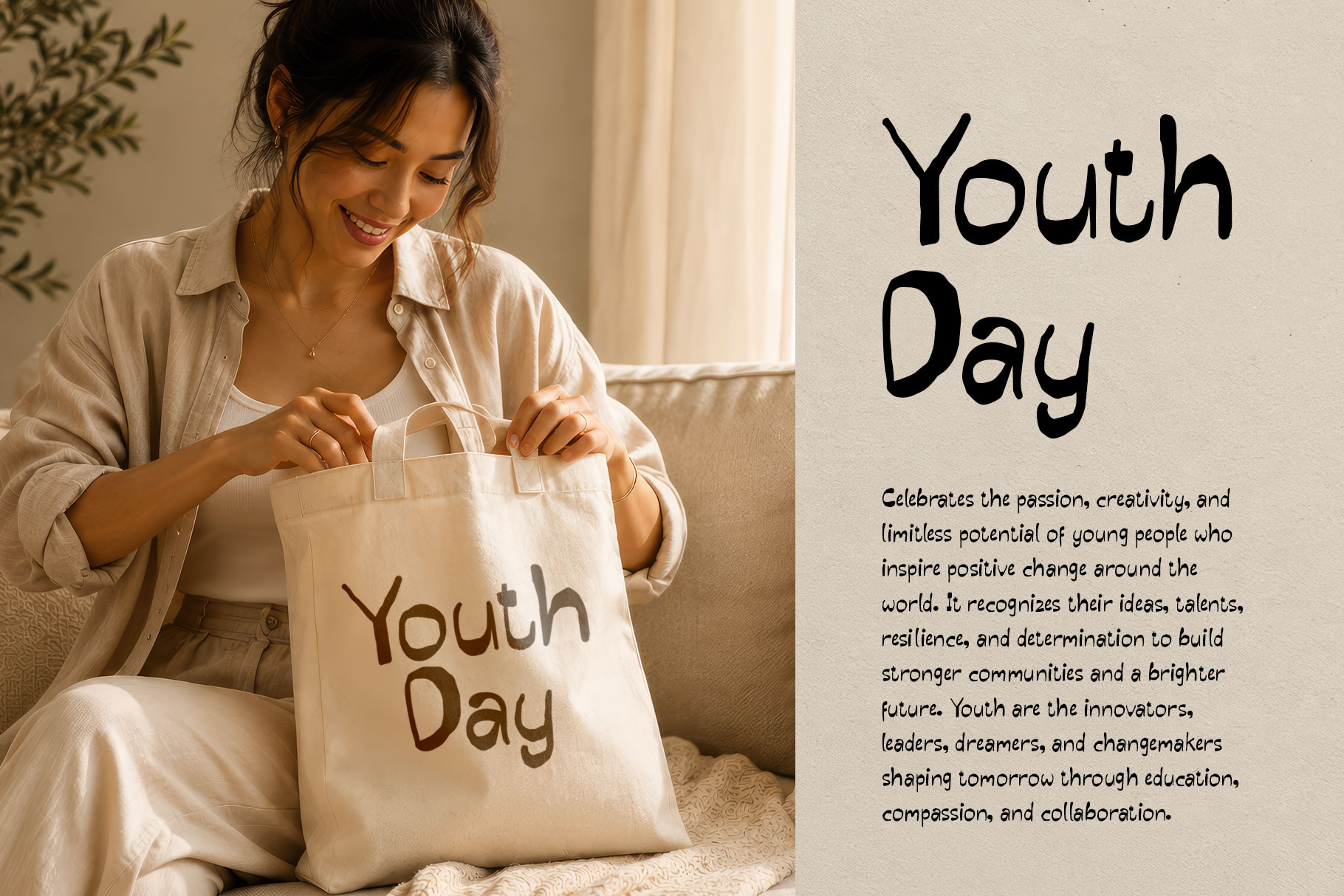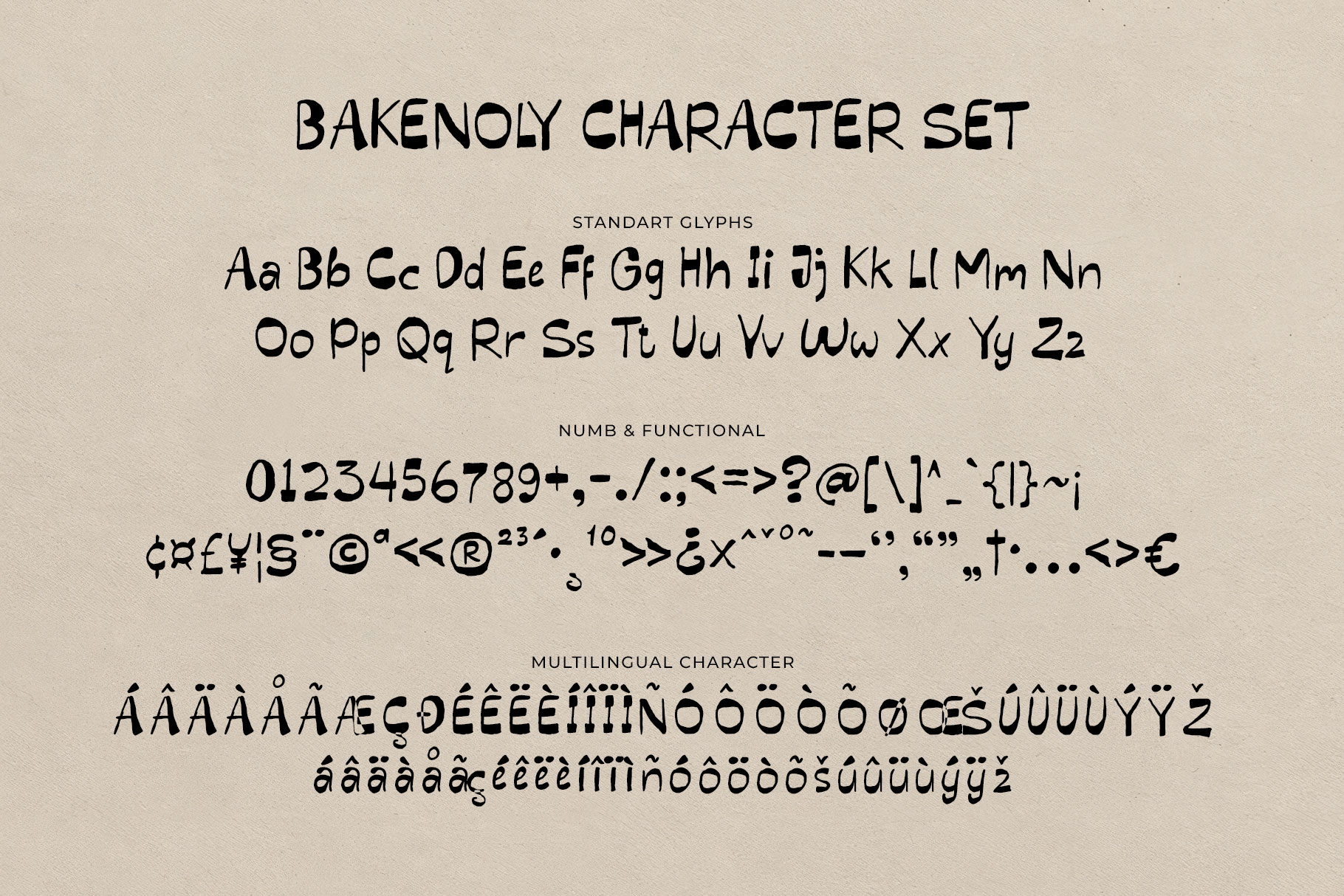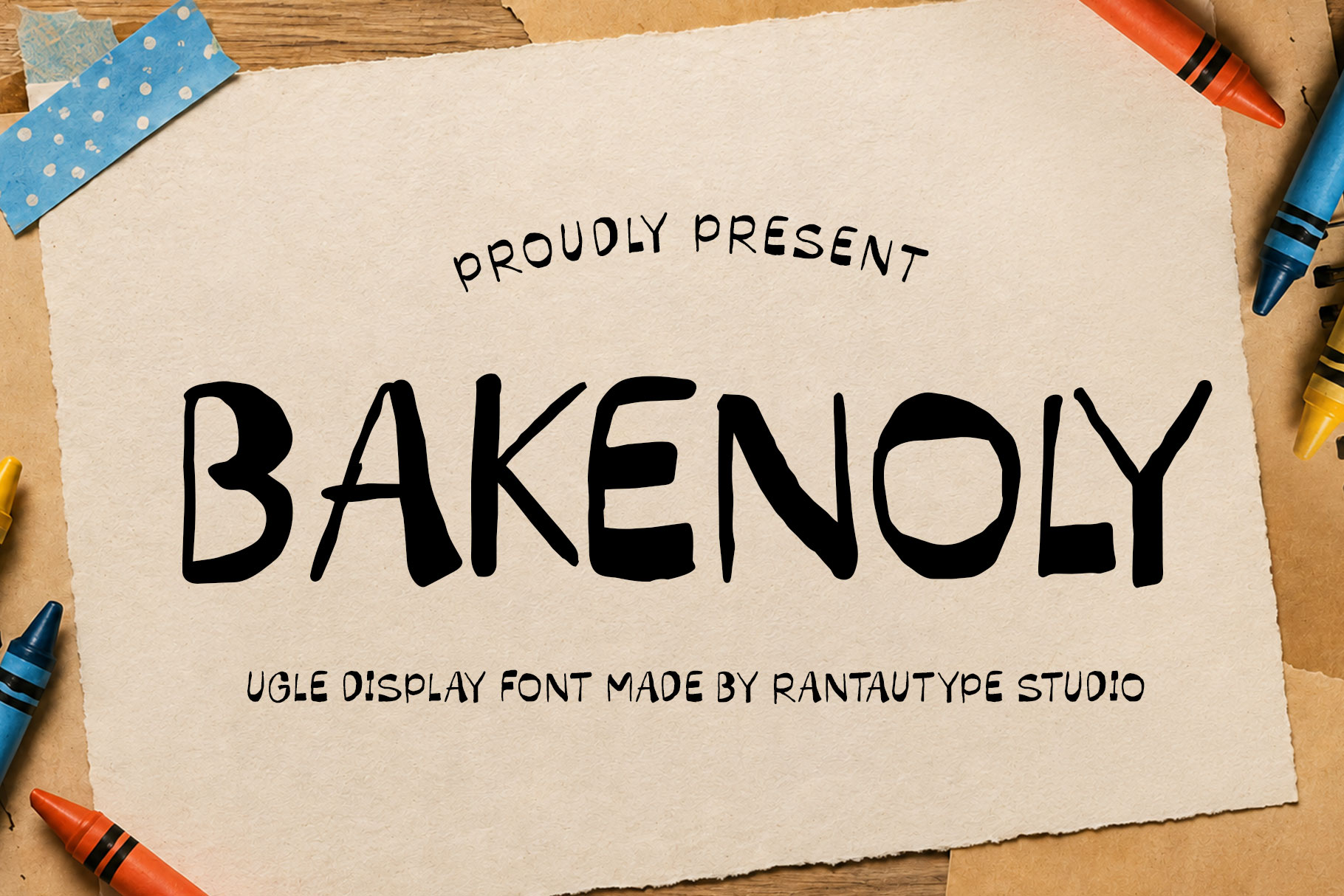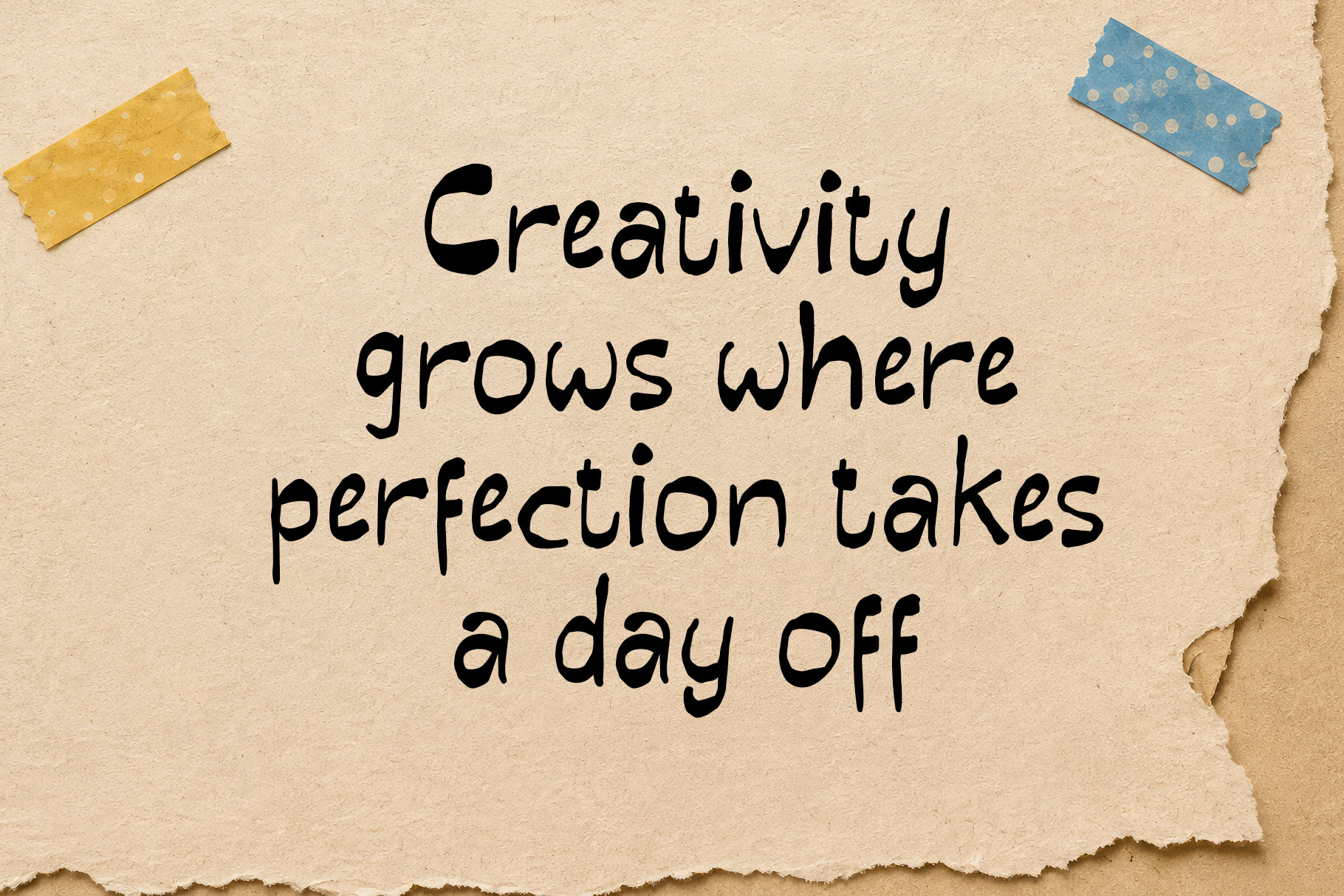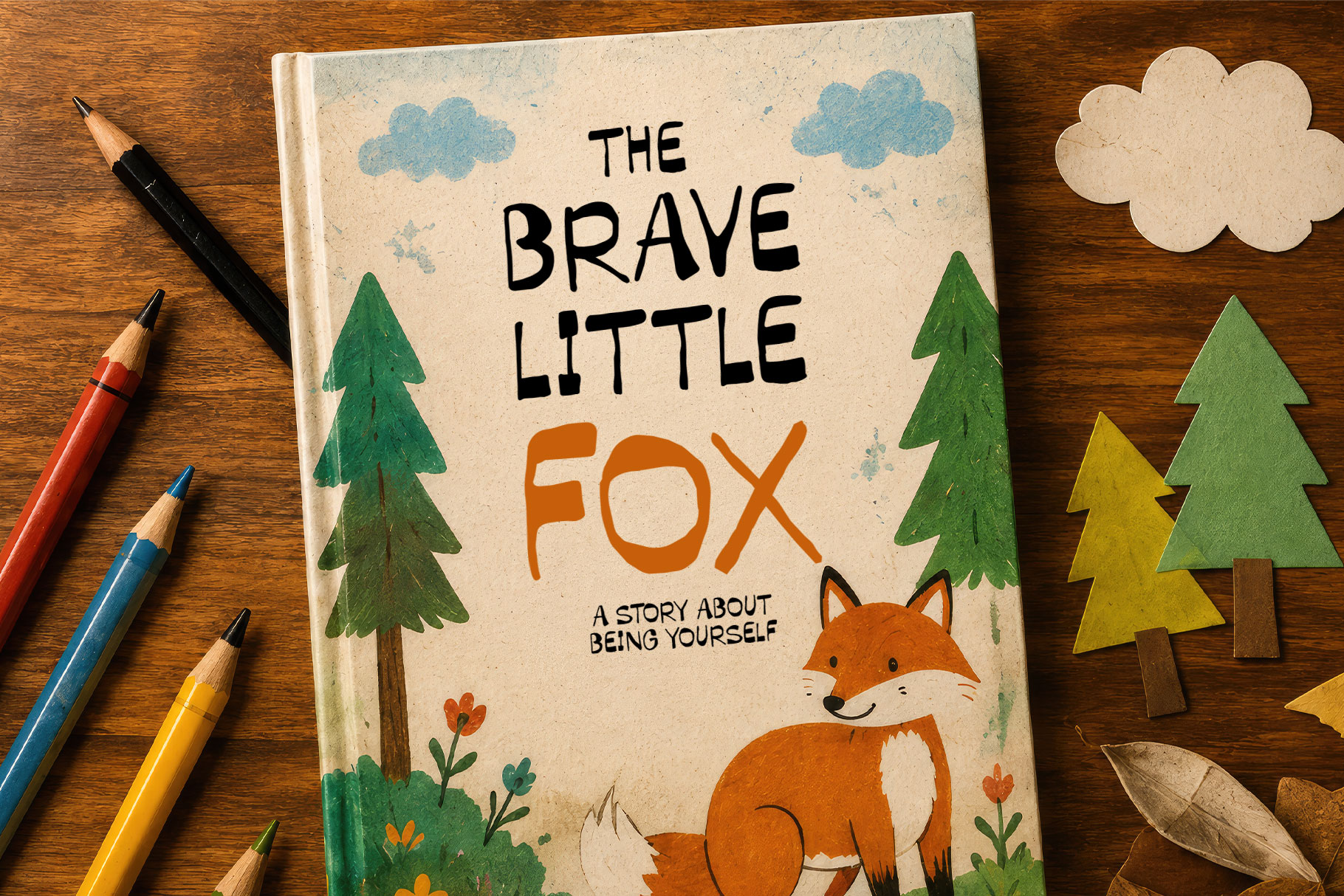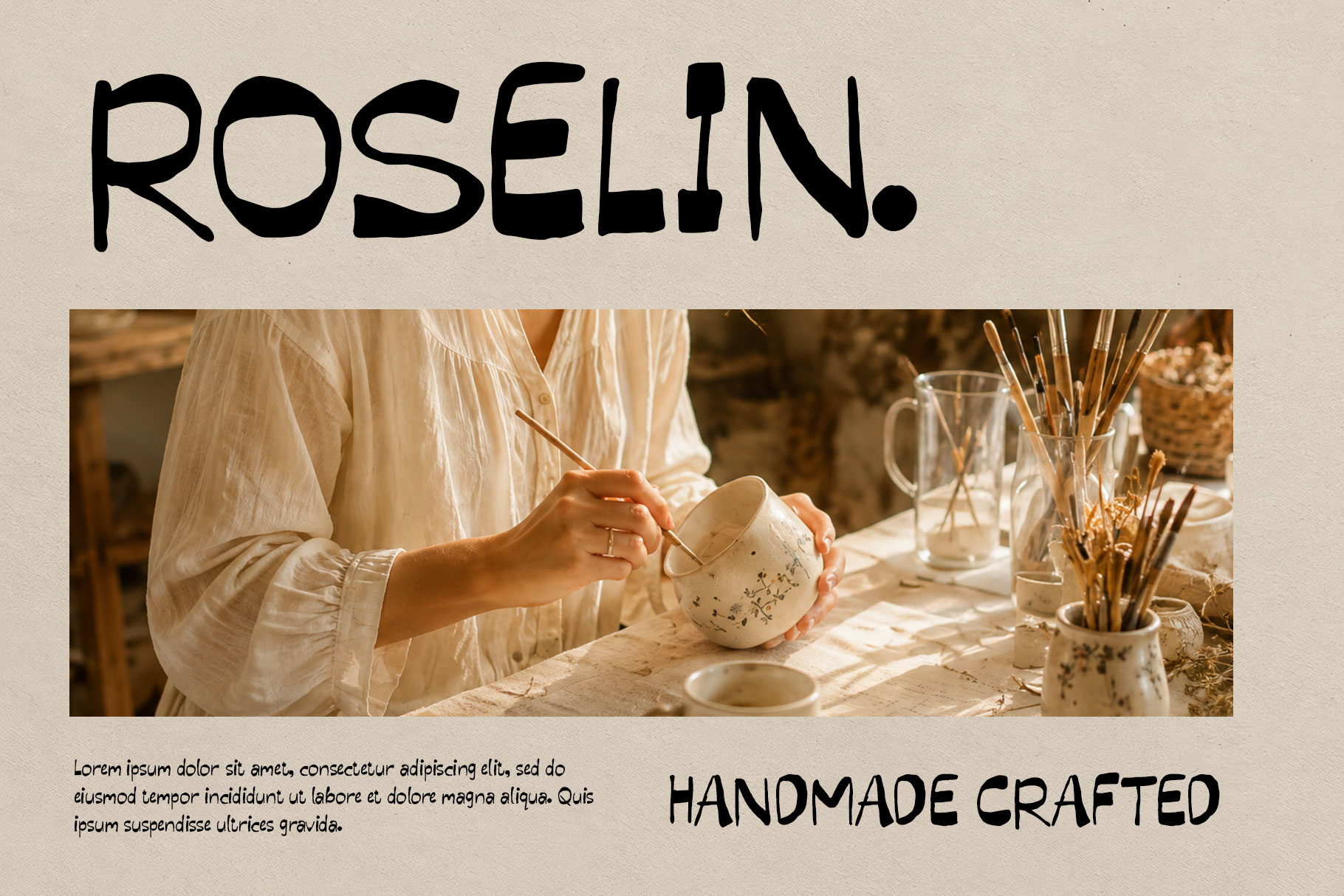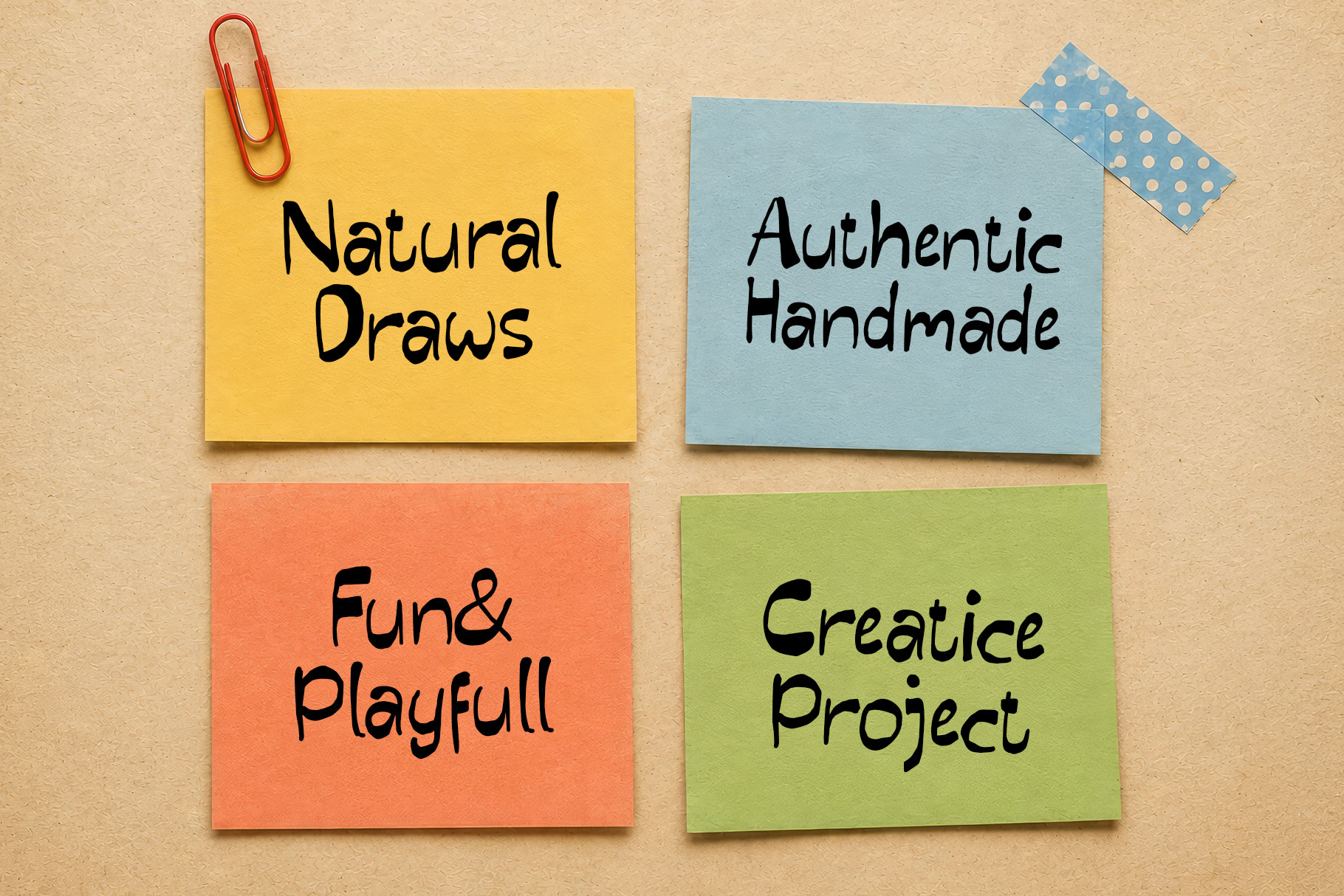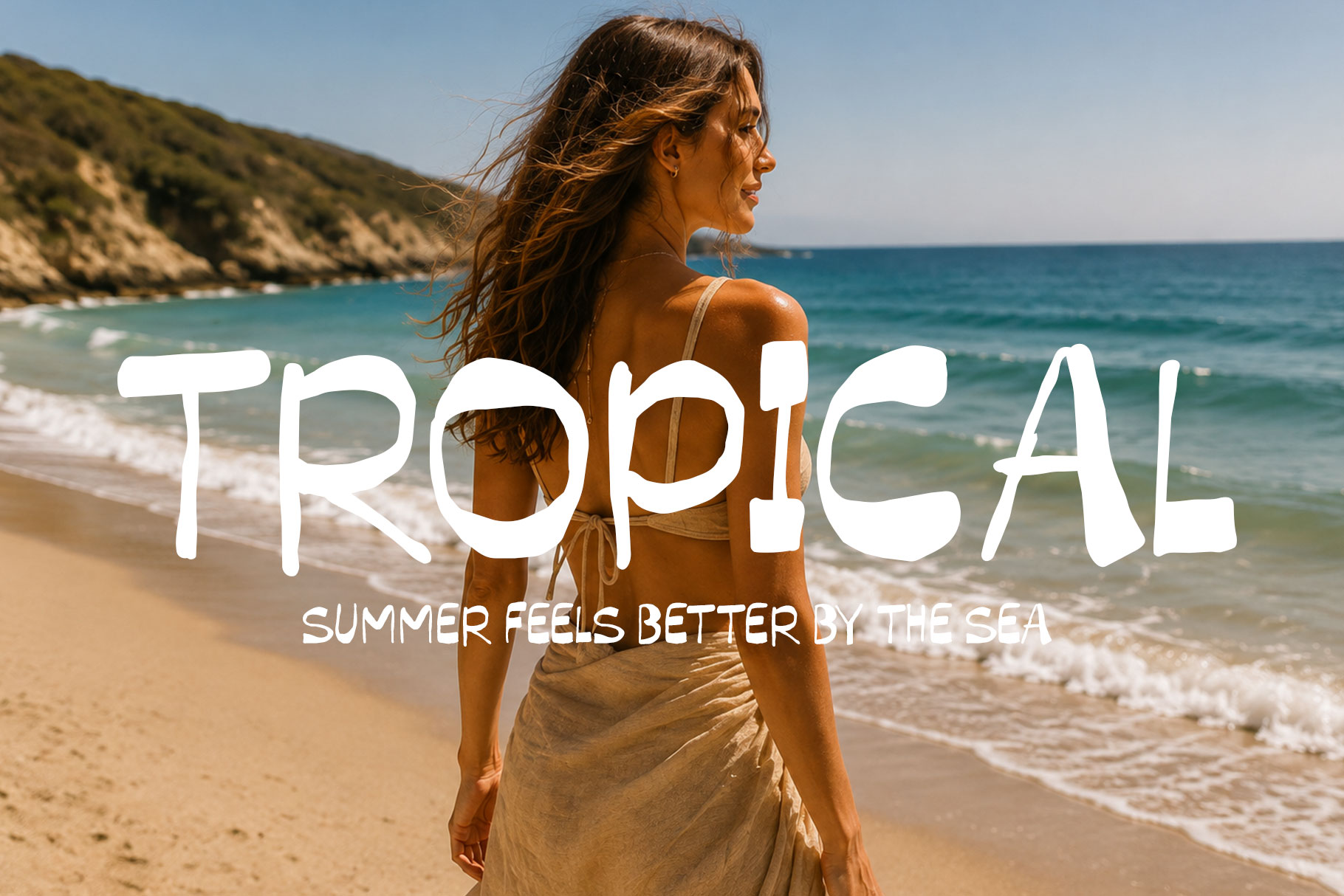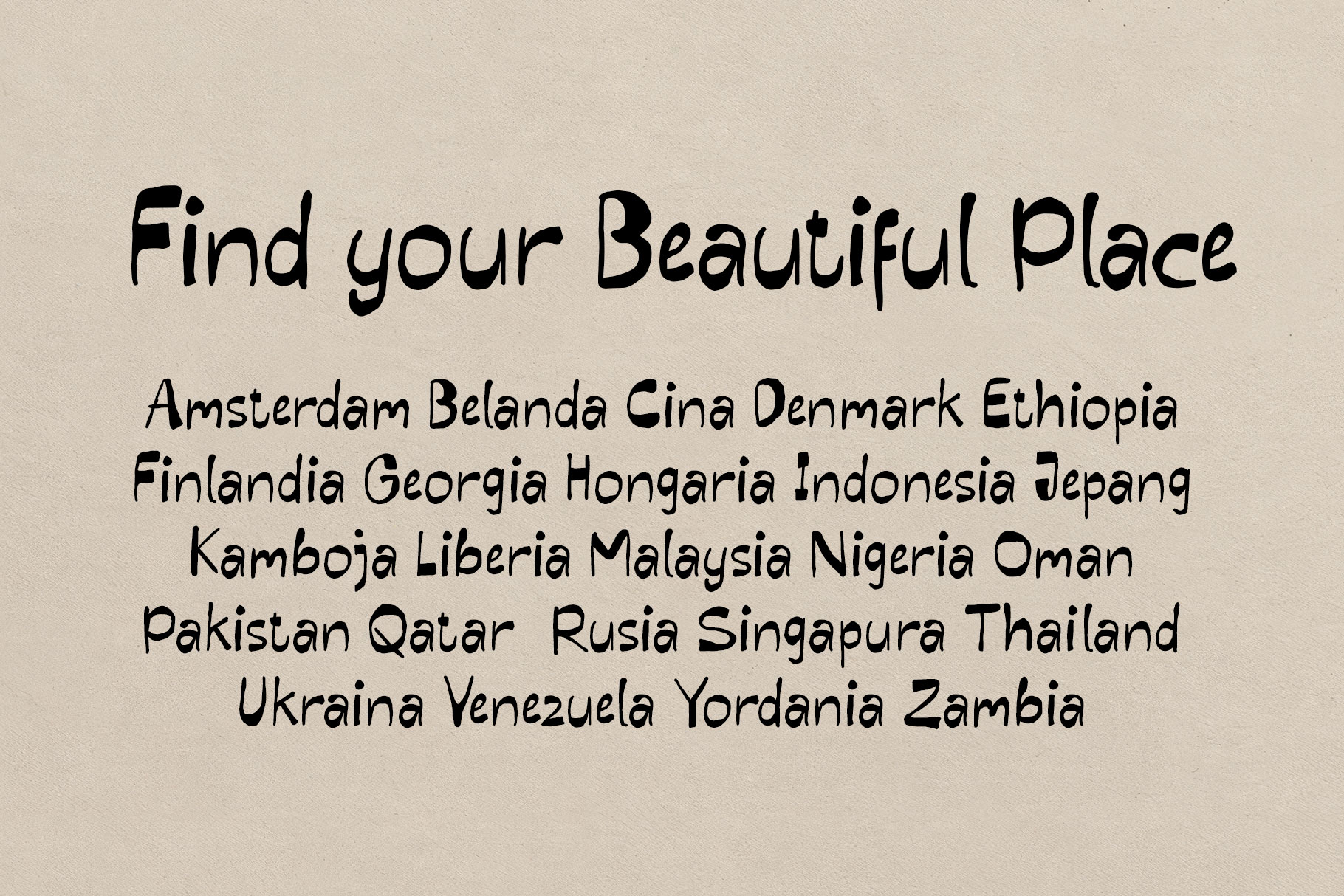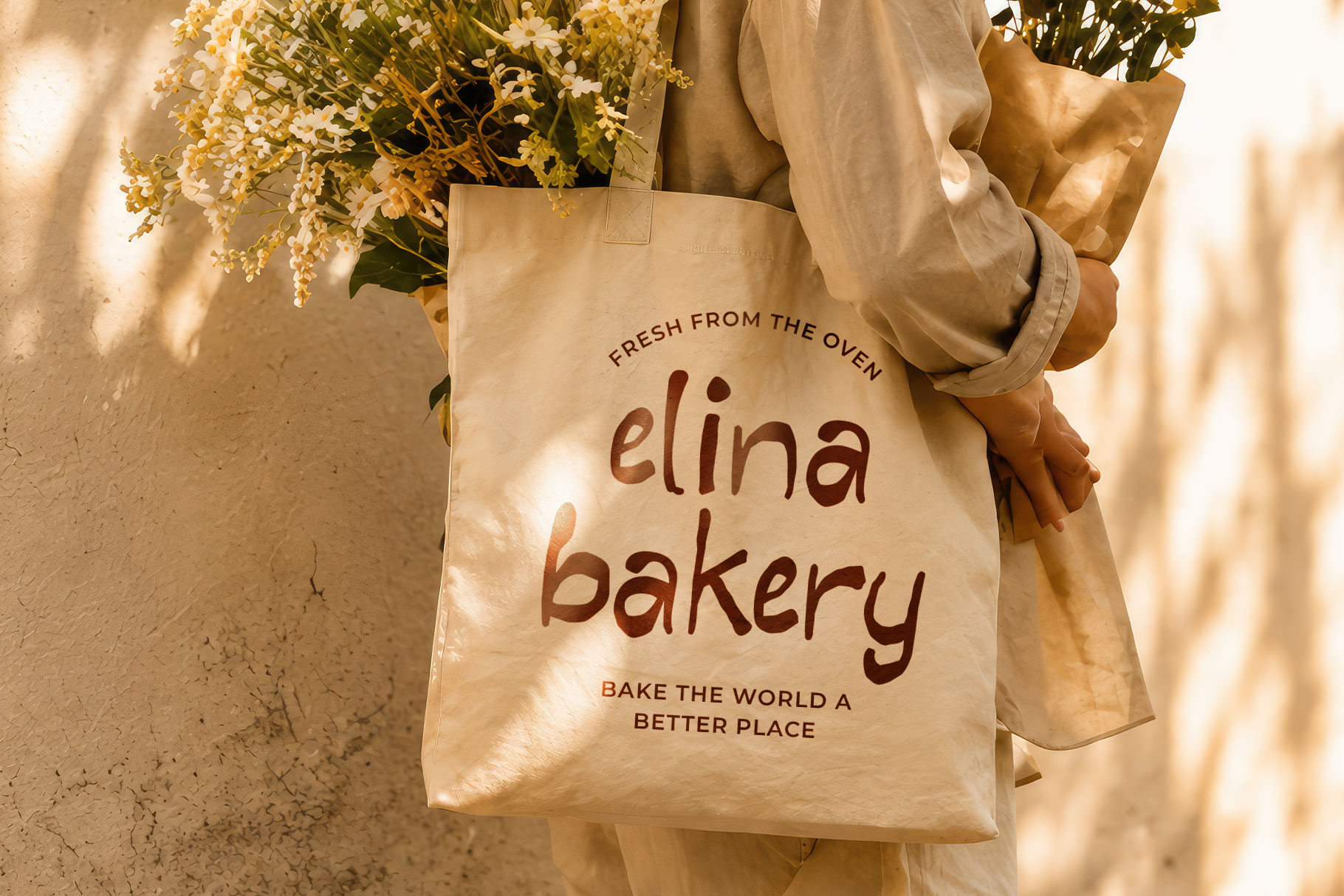
Bakenoly is playful handwritten font that embraces the beauty of imperfection with bold, uneven strokes and naturally irregular letterforms. Bakenoly is a perfectly choice for any creative endeavor, creating, modern, lifestyle design such as logotype, title, cover, branding, invitations, social media posts, advertisements, printed quotes, product packaging, corporate brand, product designs, labels, watermarks, special events and any other project with artistic touch.
Bakenoly Handwritten Ugly Font